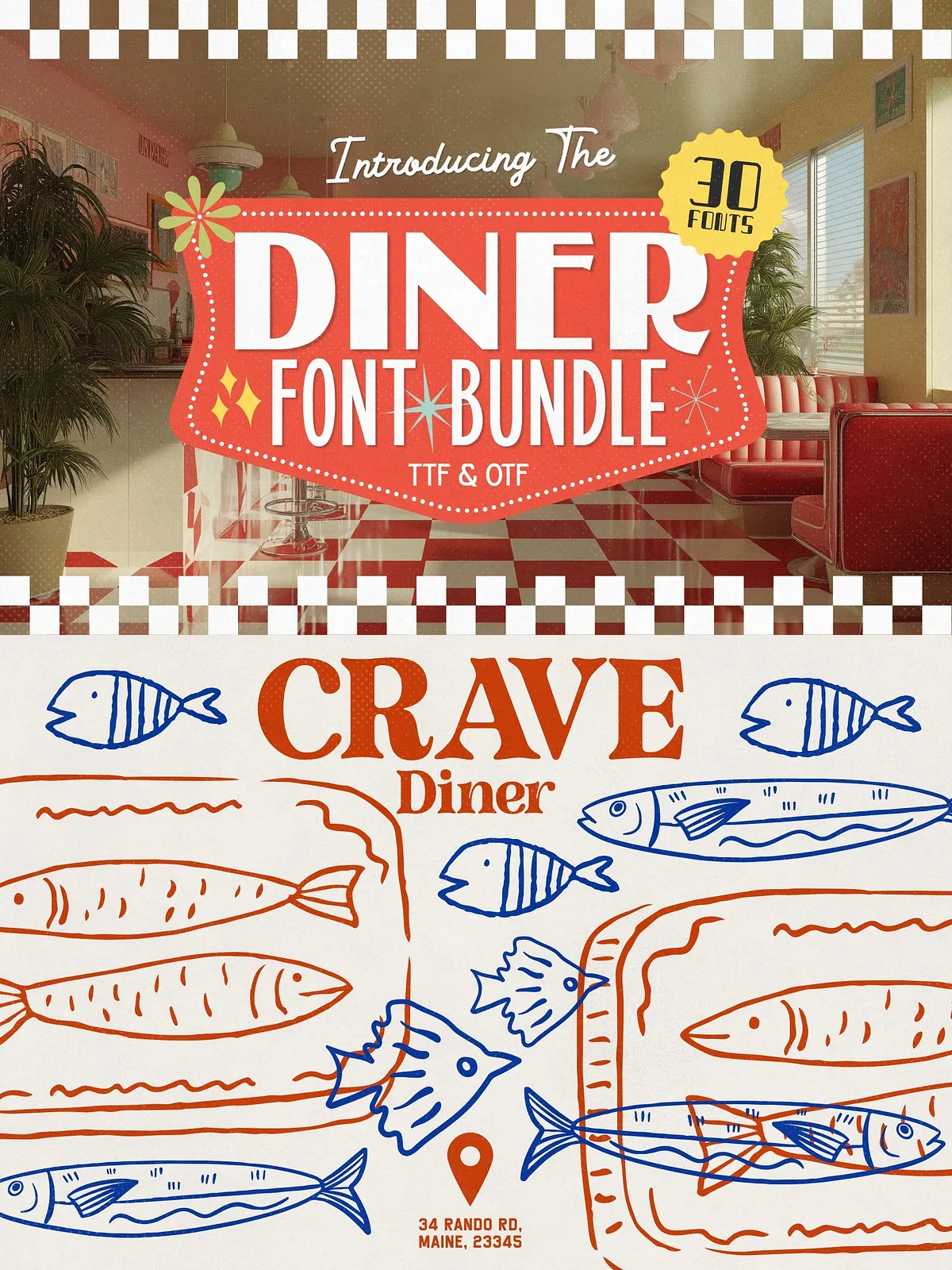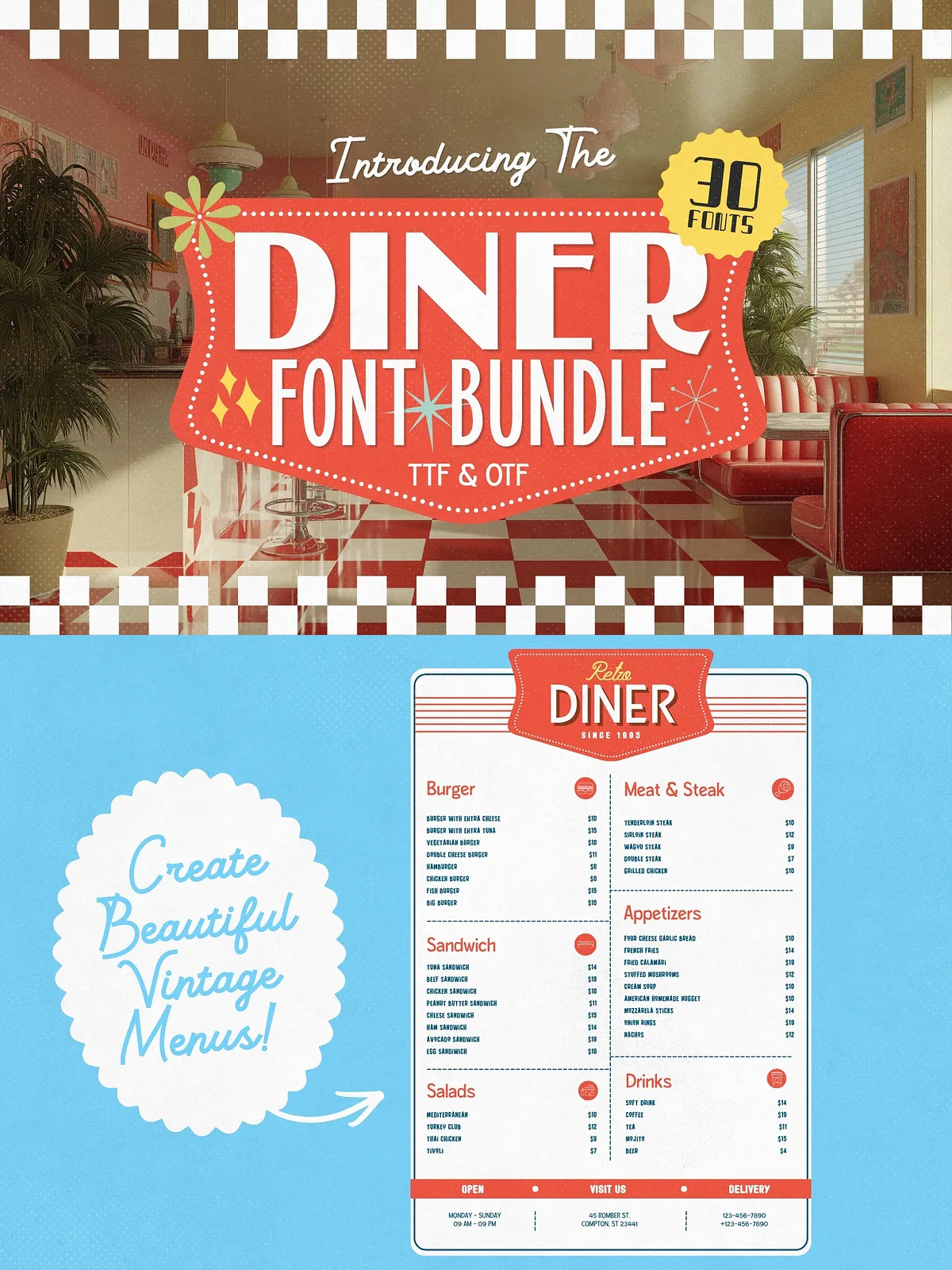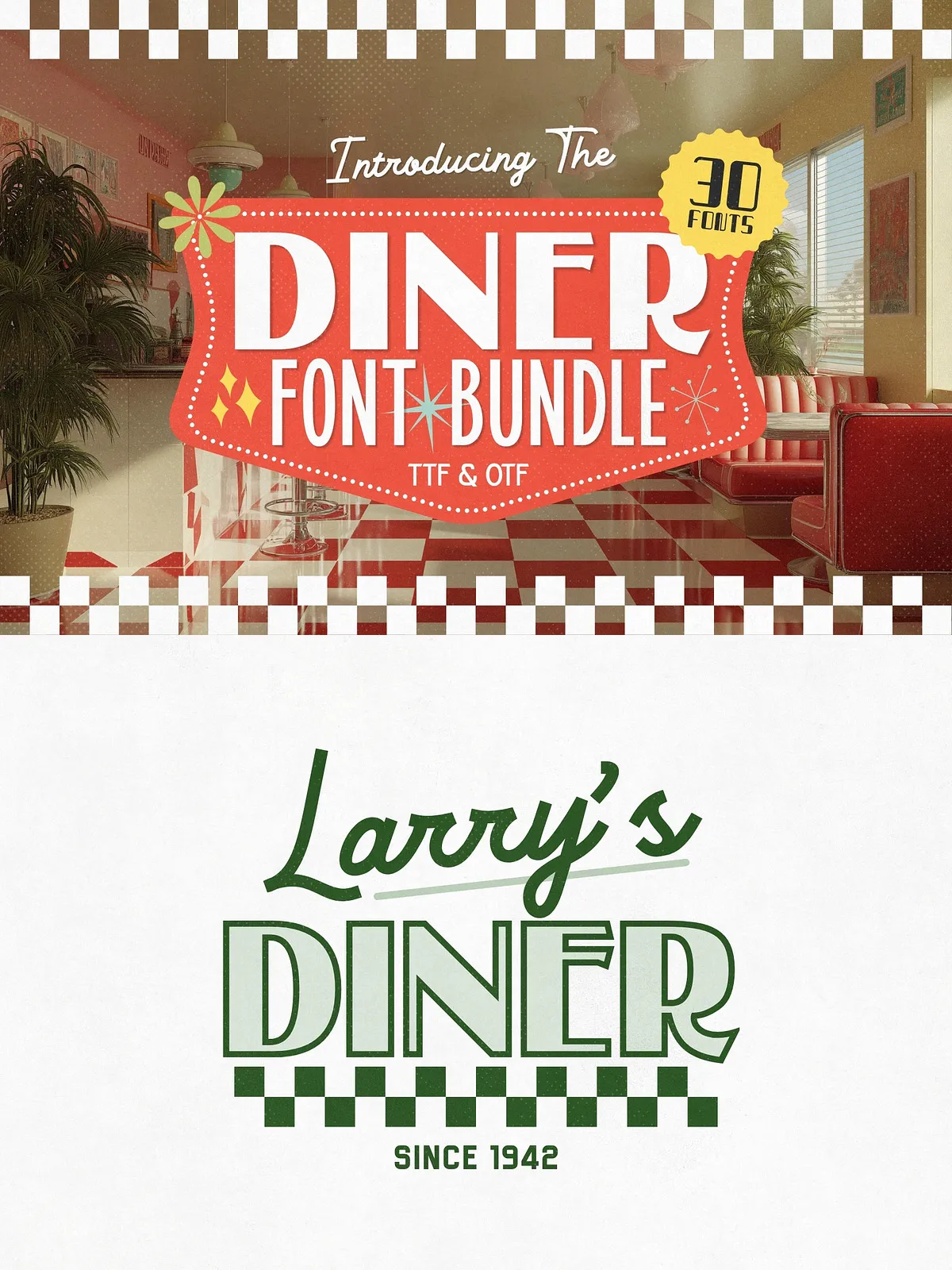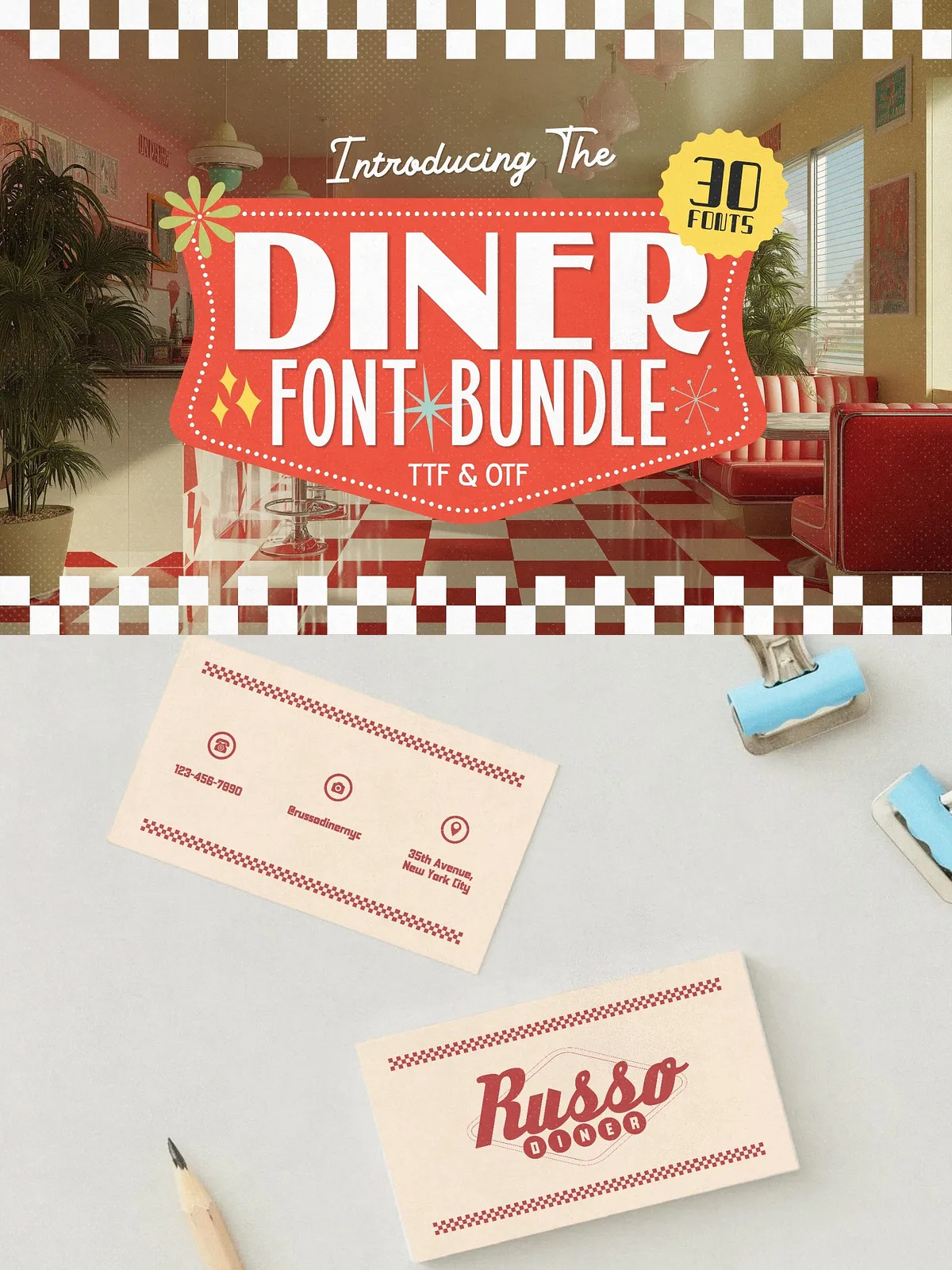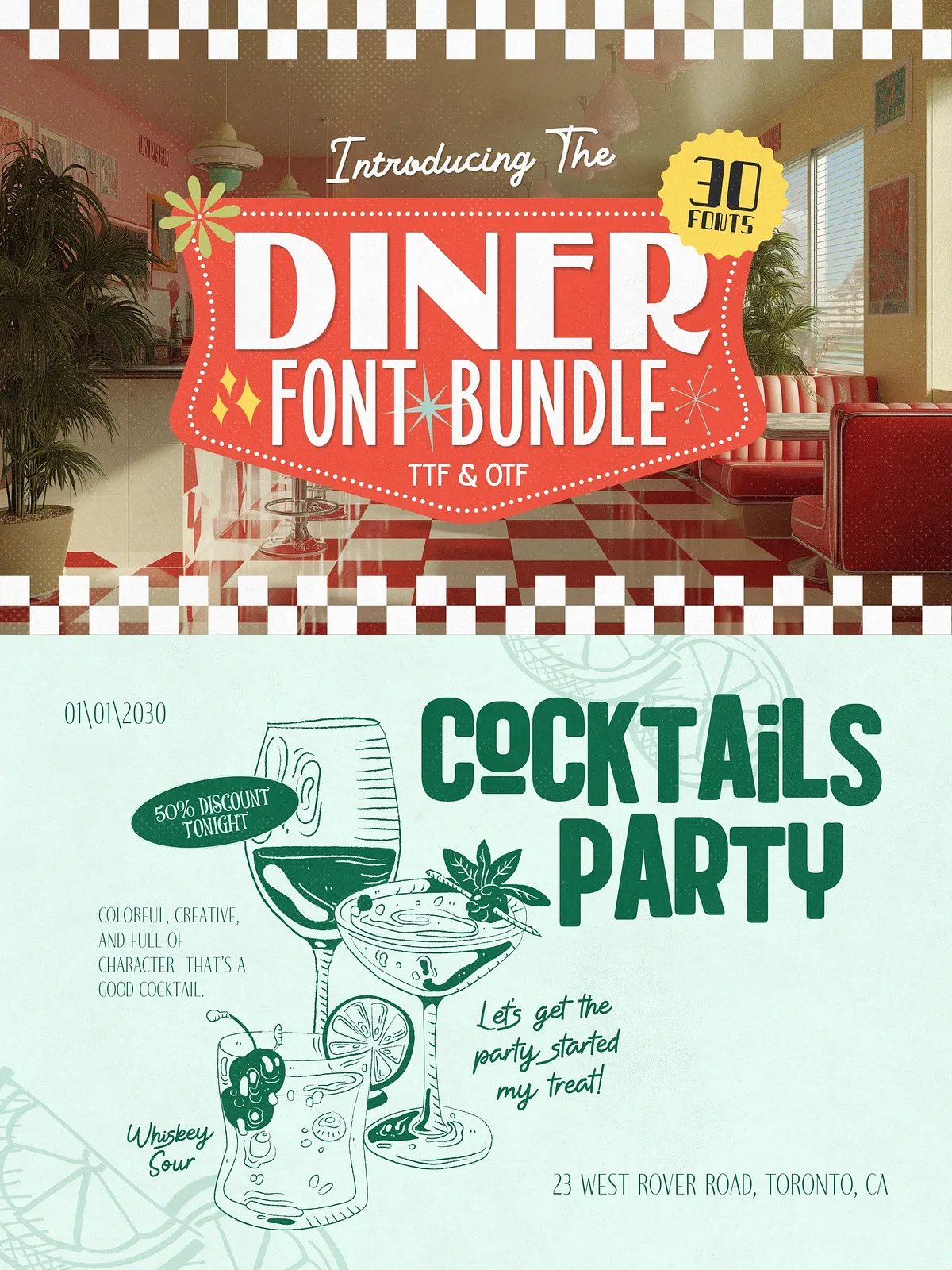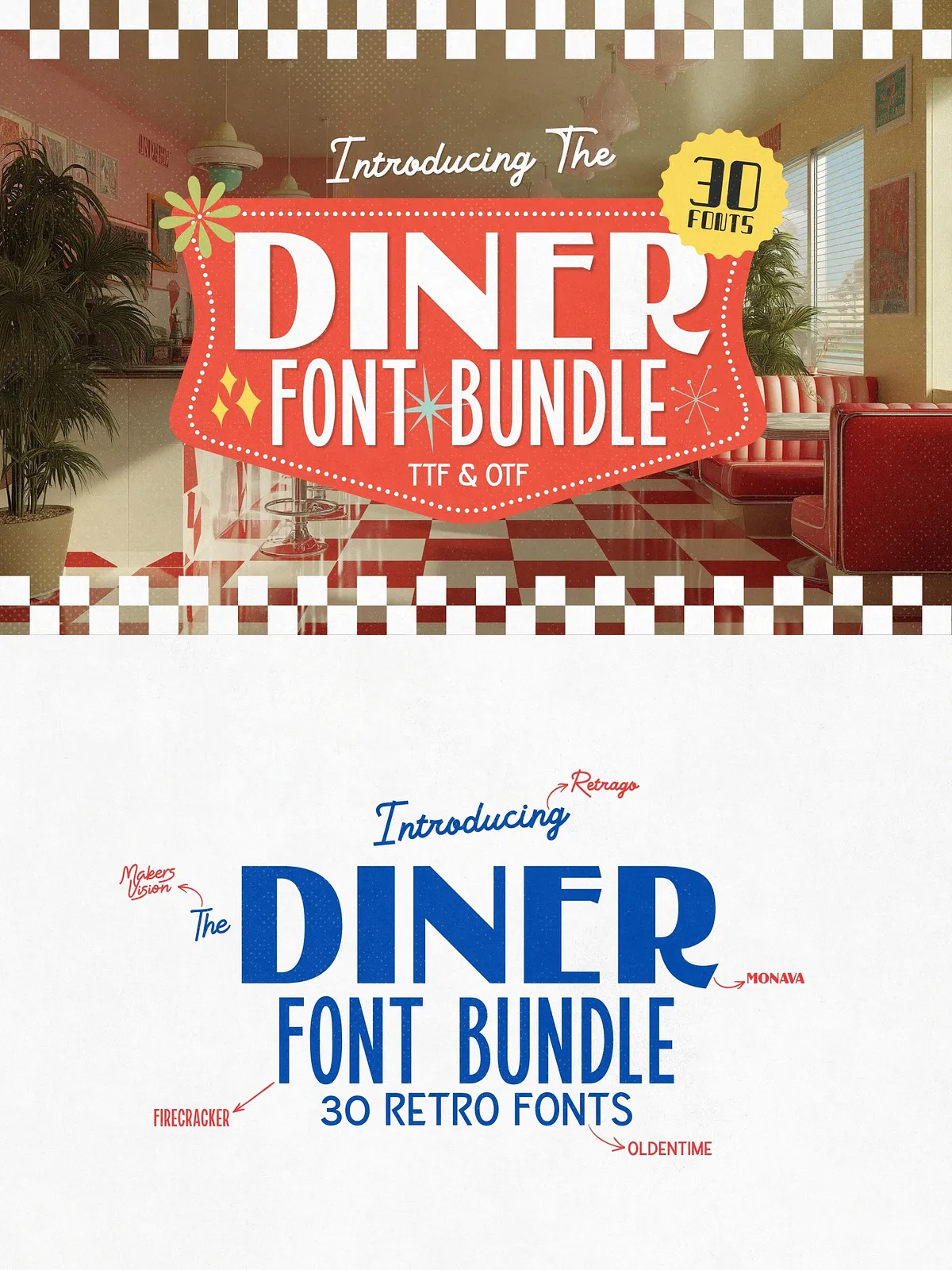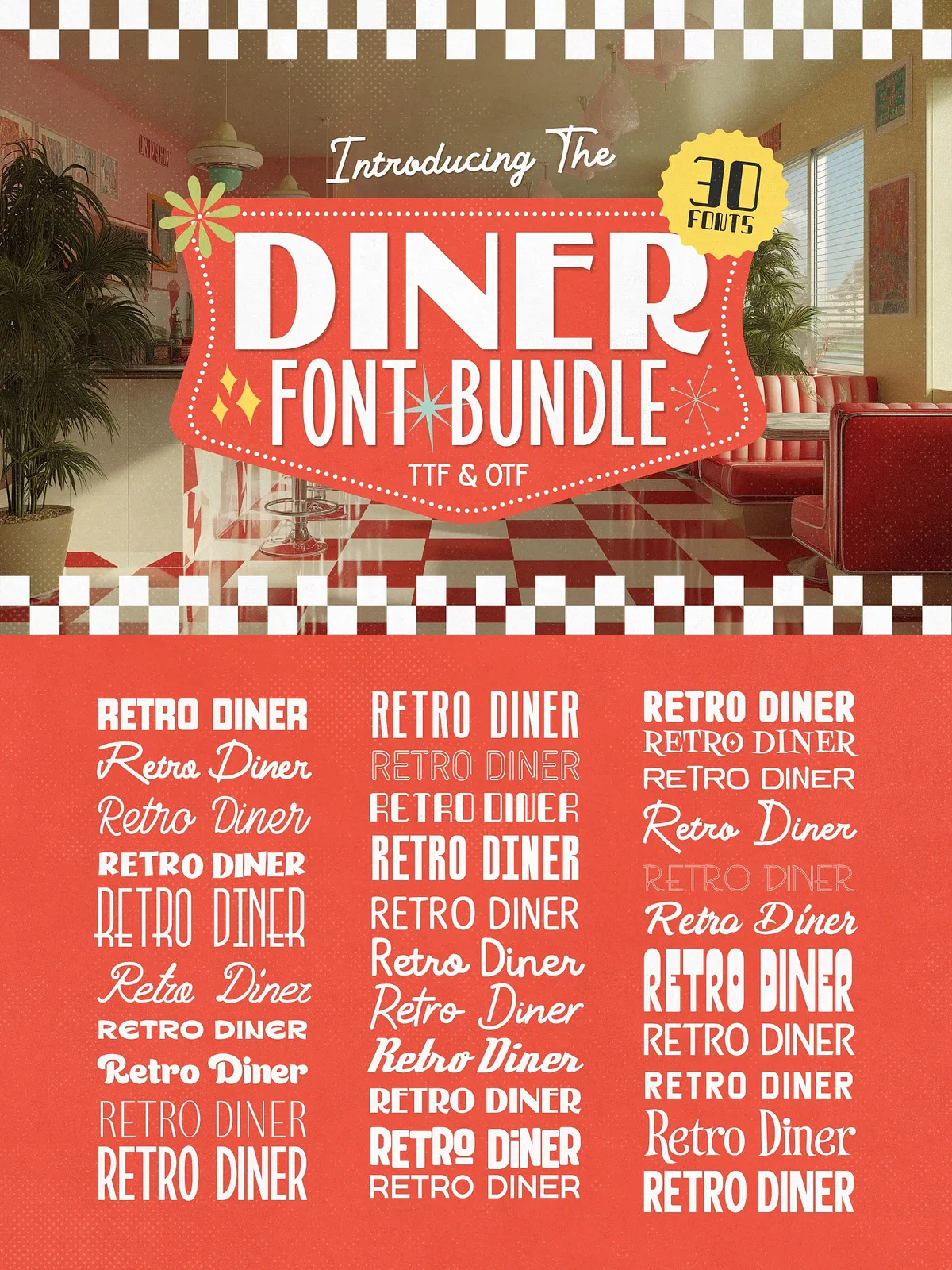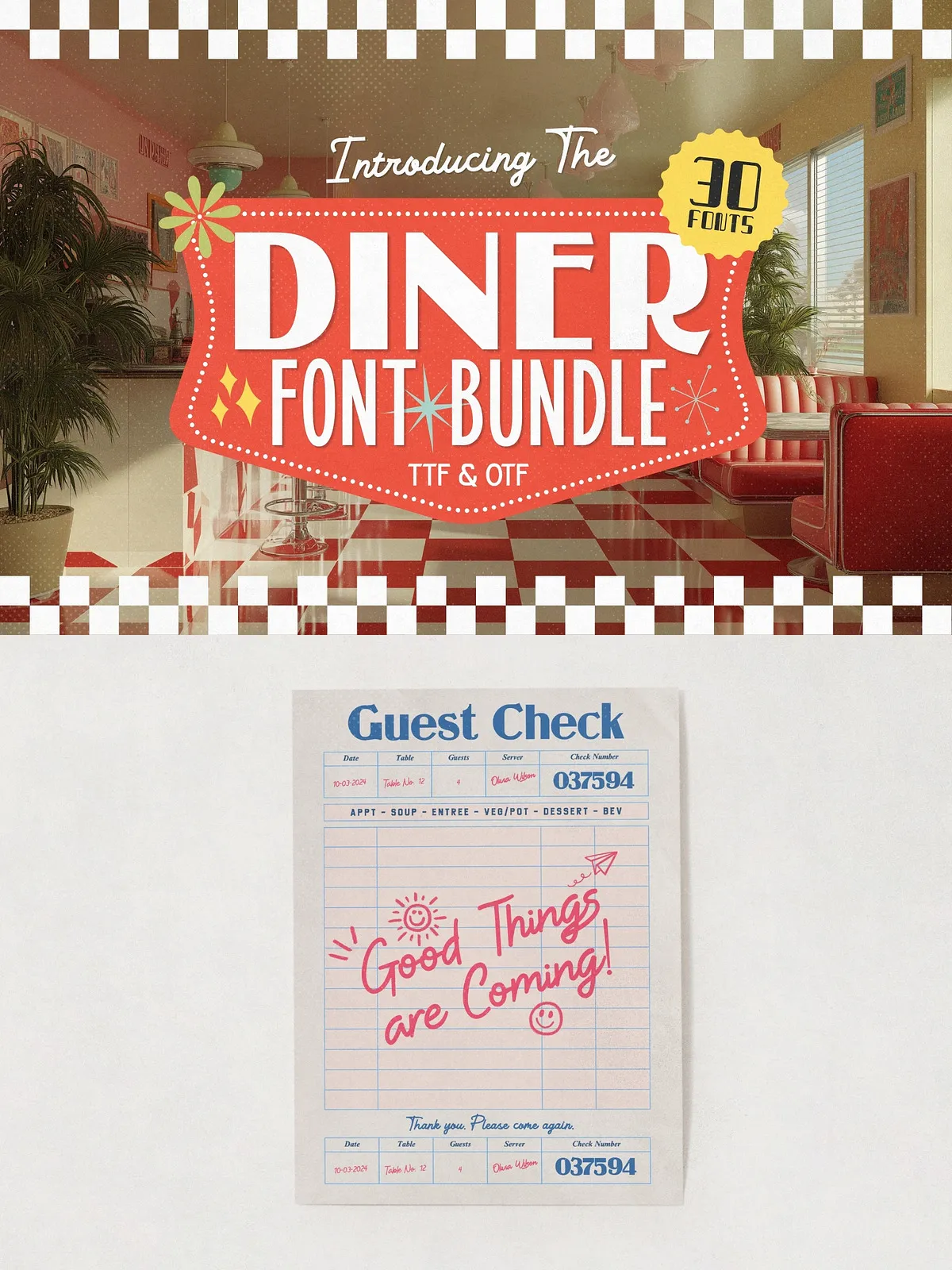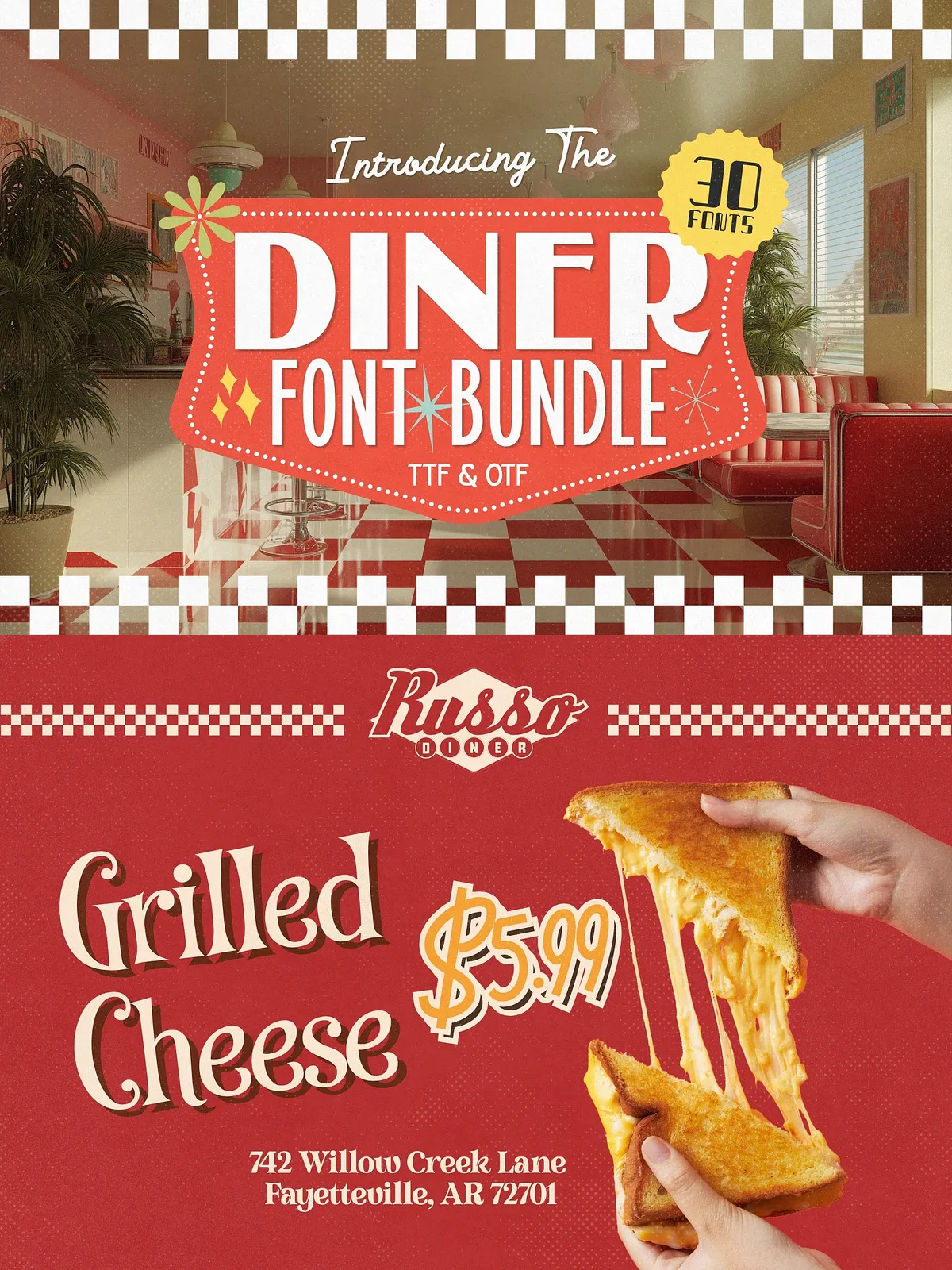
Close your eyes and picture chrome bar stools, checkered floors, and a jukebox in the corner. Neon signs glow pink and turquoise as a familiar tune makes your foot tap. That warm, nostalgic aesthetic lives inside typography — and this bundle captures it. The Diner Font Bundle delivers 30 carefully selected font families that channel the energy, attitude, and character of 1950s and 1960s American design. Use these fonts to create instant period authenticity or to infuse modern projects with retro personality.
What’s Inside
Thirty Versatile Retro Families
This collection includes a wide range of display styles and functional typefaces designed for real production use. Each family comes with multiple weights, alternates, and key glyphs so you can compose professional layouts without hunting for missing pieces.
- Bold diner display fonts — strong, readable signage faces built for headlines and storefront logos.
- Playful soda shop scripts — energetic, hand-lettered scripts that pair perfectly with menu headers and packaging.
- Classic Americana serifs — warm, nostalgic serif options for editorial and packaging text.
- Neon sign inspired display fonts — condensed and rounded styles that read like glowing tubing.
- Mid‑century modern clean fonts — streamlined sans serifs for supporting copy and modern lockups.
- Retro poster condensed fonts — tight, impactful types for posters and labels.
- Vintage hand‑lettered menu styles — charming, human scripts and ornaments for menus and signage.
- Drive‑in marquee and jukebox decorative fonts — decorative display faces for titles, packaging, and promotional art.
Why Retro Typography Is Having a Moment
Trend Meets Trust
Designers and brands return to mid‑century aesthetics because those visual cues communicate warmth, optimism, and authenticity. Retro typography evokes memory and familiarity, and audiences respond. Right now, fashion, food, music, and product design all reference 1950s–60s motifs. Instead of hiring custom lettering, this bundle lets you reproduce that exact feeling quickly and affordably.
How to Use the Fonts Effectively
Practical Tips
- Use display fonts for big headlines and signage where character matters most.
- Pair scripts with neutral sans serifs for readable body copy and clear hierarchy.
- Combine neon‑inspired displays with textured backgrounds or subtle halftones to sell the period mood.
- Leverage alternates and ligatures to create authentic hand‑lettered accents and avoid repetitive shapes.